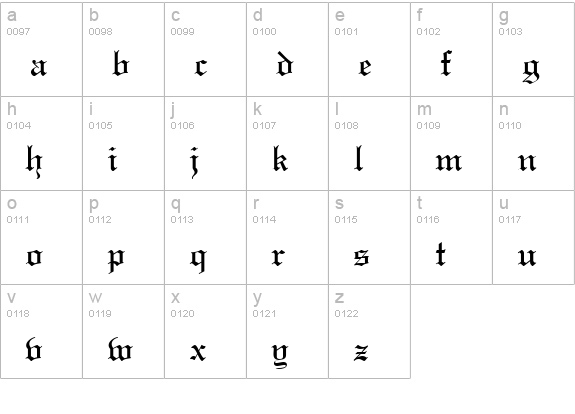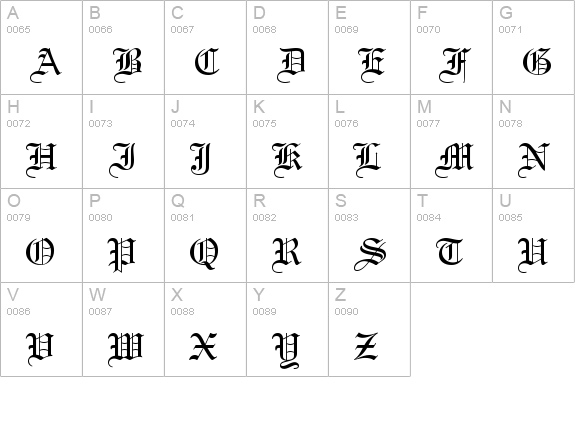
ClerestorySSK Font Details
ClerestorySSK is a stunning and elegant font that exudes sophistication and charm. With its unique design and timeless appeal, this font is perfect for adding a touch of class to any project. The tall, slender letterforms create a sense of grace and elegance, making ClerestorySSK a versatile choice for a wide range of design applications. What makes ClerestorySSK even more appealing is that it is completely free to download. Yes, you read that right - this beautiful font is available for free at FontsMarket.com. Whether you're working on a personal project or a professional design, ClerestorySSK is the perfect choice for adding a touch of sophistication to your work. Download it today and elevate your design to new heights with this exquisite font.